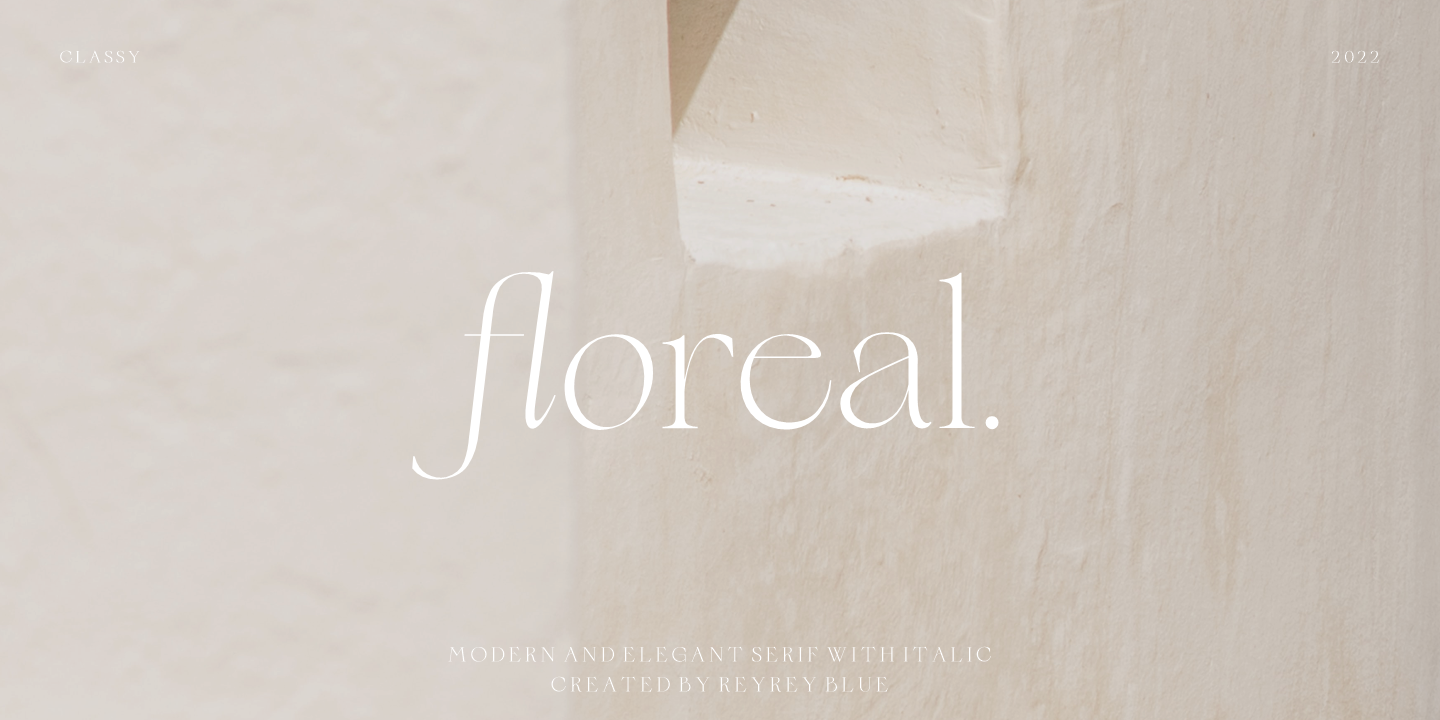
Floreal Font is perfect for luxury branding, wedding invitations, fashion magazines, cosmetic packaging, jewelry advertising, high-end restaurant menus, boutique signage, and elegant marketing materials. Its sophisticated appearance makes it ideal for beauty brands, luxury hotels, premium product packaging, and upscale event designs.
Floreal Font is exciting because it captures the essence of botanical elegance with contemporary flair. This remarkable typeface brings together organic curves and refined letterforms, creating a distinctive visual voice that speaks to sophistication and natural beauty. The font's delicate flourishes and graceful proportions make it perfect for brands seeking to convey luxury, femininity, and artistic excellence.
The Floreal Font family includes multiple elegant variations: Regular, Light, Medium, Bold, and Decorative versions. Each style maintains the font's signature botanical character while offering different levels of visual impact. The family also features ornamental elements, swashes, and alternative characters that provide designers with extensive creative possibilities for customization.
Floreal Font Free Download represents a masterpiece in decorative typography design. This exceptional typeface has been carefully designed to evoke the beauty of blooming flowers and natural growth patterns. Whether you're creating brand identities for luxury goods, designing wedding materials, or developing packaging for premium products, this font delivers unmatched elegance and sophistication.
The organic inspiration behind Floreal Font makes it particularly suitable for beauty companies, floral businesses, and lifestyle brands. Its feminine yet strong personality allows it to communicate luxury and refinement while maintaining excellent readability. The font's artistic character supports creative projects that require both beauty and functionality.
Professional designers choose Floreal Font for its unique ability to transform ordinary text into extraordinary visual statements. The font performs beautifully in both display and decorative applications, making it an invaluable resource for creating memorable brand experiences. Its elegant letterforms support multiple languages and include extensive character sets for international luxury markets.
The sophisticated nature of Floreal Font makes it an ideal choice for premium brand positioning. Its distinctive botanical personality enhances high-end communications while creating emotional connections with discerning audiences who appreciate quality, artistry, and natural beauty in their visual experiences.